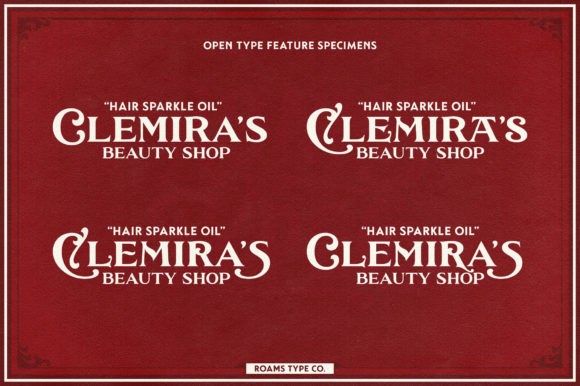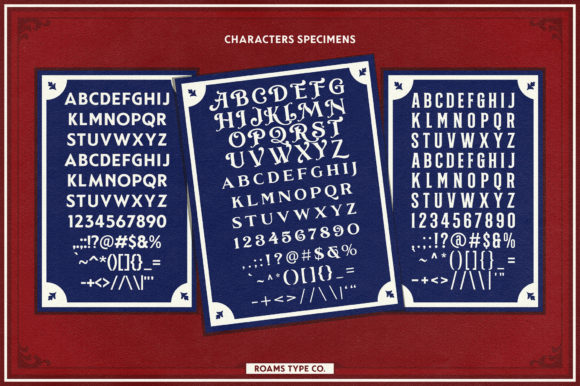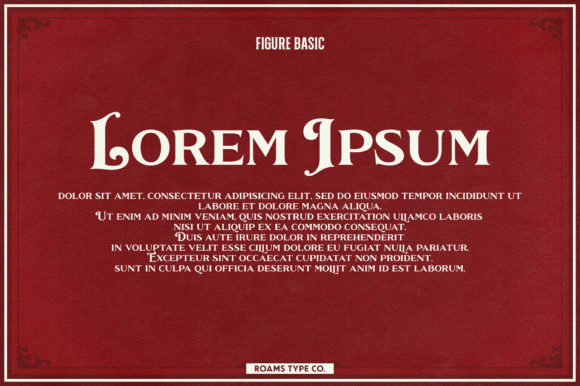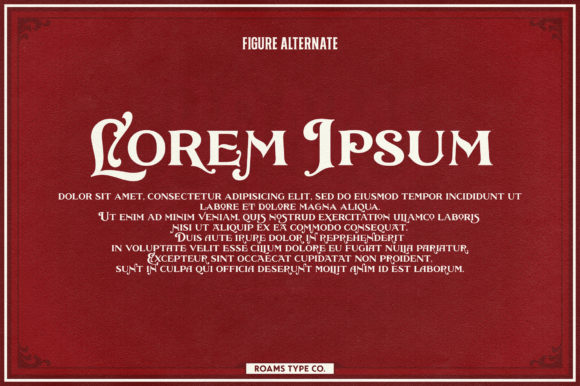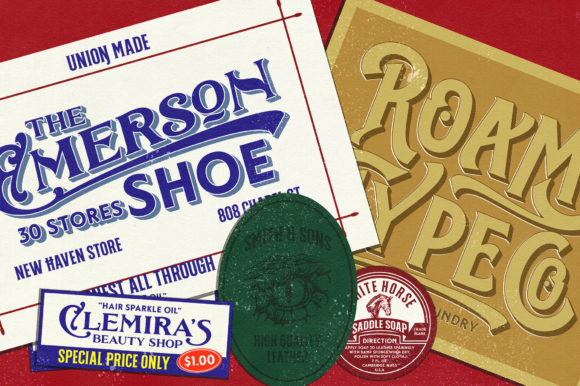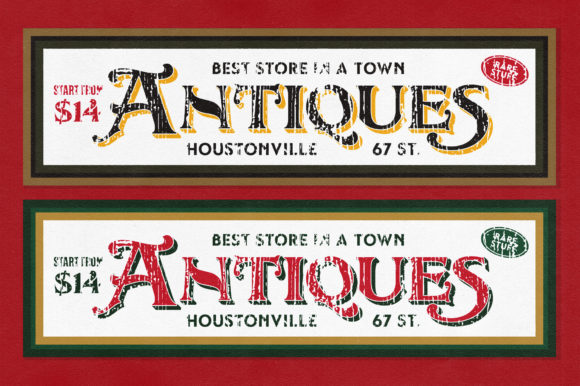
Dyans Font: Elevate Your Designs with a Bold, Vintage Flair
Are you tired of using the same old fonts in your designs? Look no further than Dyans Font, a bold, thick lettered, and vintage styled display font that’s sure to make your work stand out. With its unique character and versatility, Dyans Font is perfect for designers and crafters looking to add a touch of nostalgia and sophistication to their projects.
What is Dyans Font?
Dyans Font is a carefully crafted display font that’s designed to make a statement. Its bold, thick letters are reminiscent of classic signage and advertising from the past, while its clean lines and modern aesthetic ensure it remains fresh and relevant today. Whether you’re working on a poster, label, apparel design, or branding project, Dyans Font is the perfect choice for adding a touch of vintage flair.
Key Features of Dyans Font
- Bold and Thick Lettering: Dyans Font features bold, thick letters that are sure to grab attention and make your designs pop.
- Vintage Style: With its classic aesthetic and nostalgic feel, Dyans Font is perfect for designs that require a touch of retro charm.
- Versatile: Dyans Font can be used on a wide range of projects, from posters and labels to apparel and branding.
- Easy to Read: Despite its bold style, Dyans Font is surprisingly easy to read, making it perfect for headlines, titles, and short phrases.
Uses for Dyans Font
Dyans Font is incredibly versatile, and can be used on a wide range of projects, including:
- Posters and Flyers: Add a touch of vintage flair to your posters and flyers with Dyans Font.
- Labels and Packaging: Use Dyans Font to add a bold, eye-catching touch to your labels and packaging.
- Apparel Design: Dyans Font is perfect for designing t-shirts, hoodies, and other apparel.
- Branding and Logo Design: Use Dyans Font to create a bold, memorable logo for your brand.
Why Choose Dyans Font?
With so many fonts to choose from, why should you choose Dyans Font? Here are just a few reasons:
- Unique Style: Dyans Font has a unique, distinctive style that’s sure to set your designs apart.
- High-Quality Design: Dyans Font is carefully crafted to ensure it’s both beautiful and functional.
| Author | Roams Type Co. |
If you’re looking for a bold, vintage styled display font that’s sure to elevate your designs, look no further than Dyans Font. With its unique character, versatility, and high-quality design, Dyans Font is the perfect choice for designers and crafters looking to add a touch of nostalgia and sophistication to their projects. So why wait? Download Dyans Font today and start creating stunning designs that will leave a lasting impression.